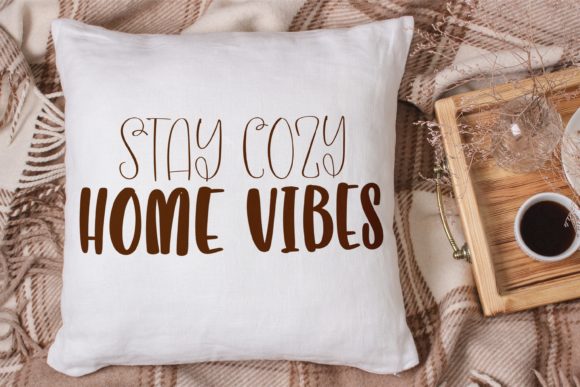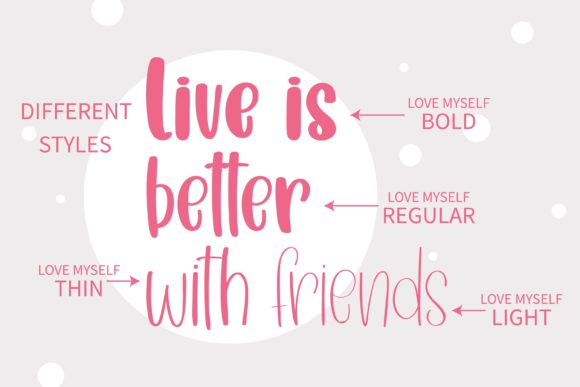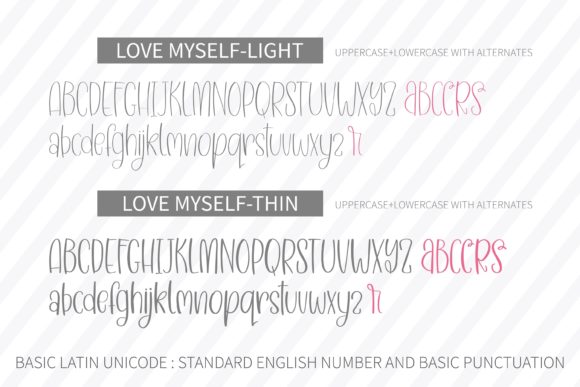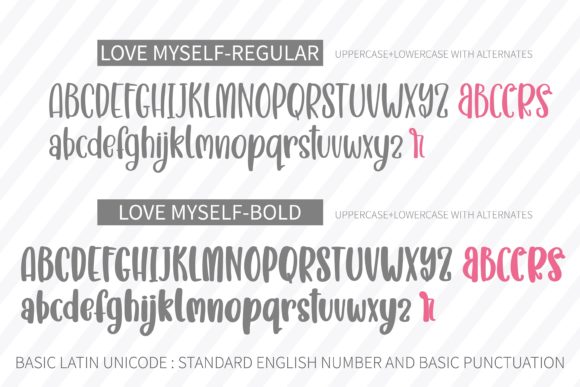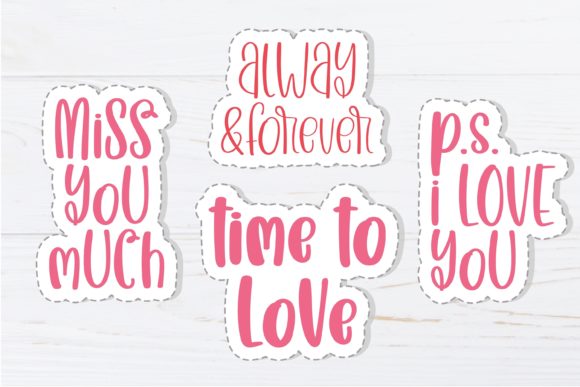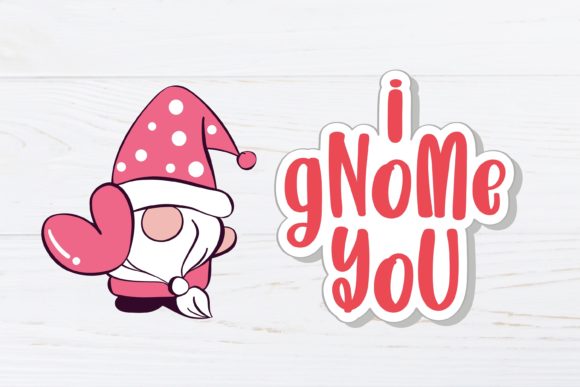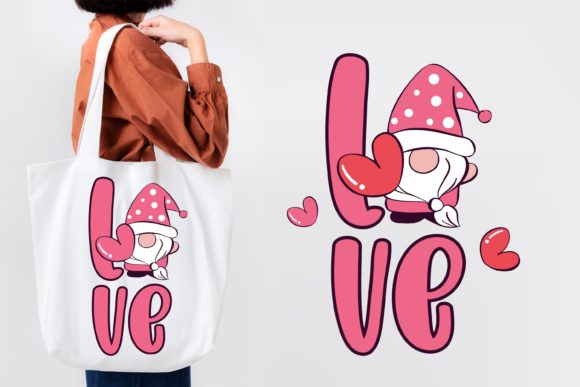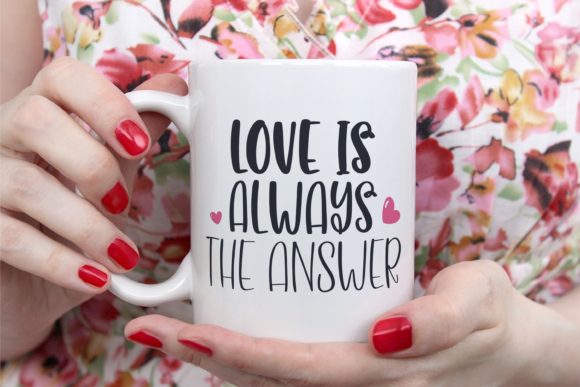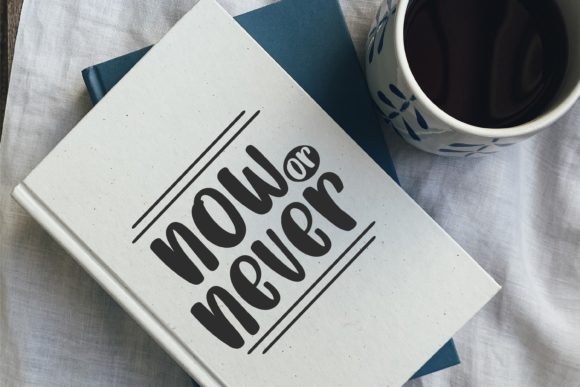
Love Myself Font
About Love Myself Font
Love Myself is a cute and relaxed handwritten family font. Its natural and unique style makes it suitable for various design ideas. Add it confidently to your projects, and you will love the results!